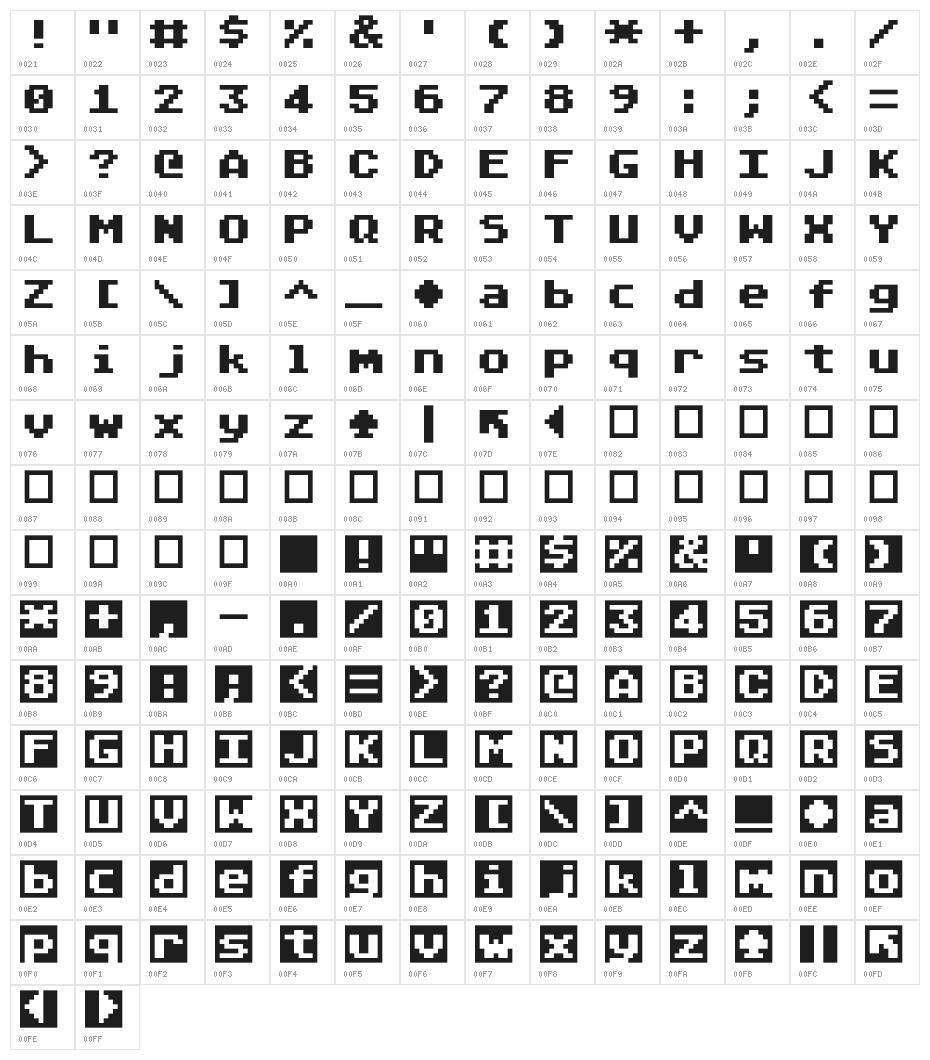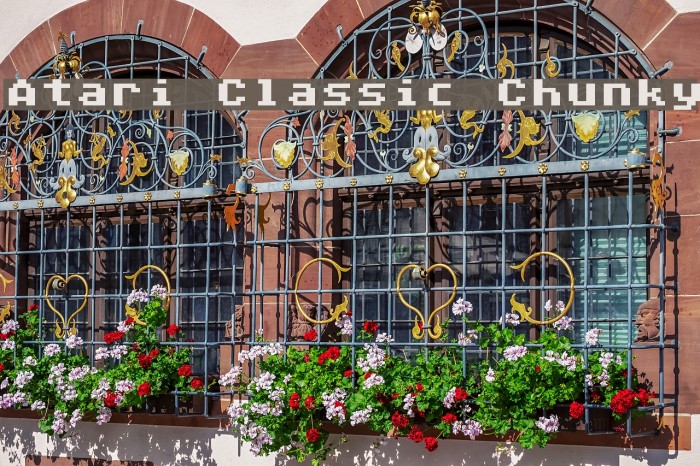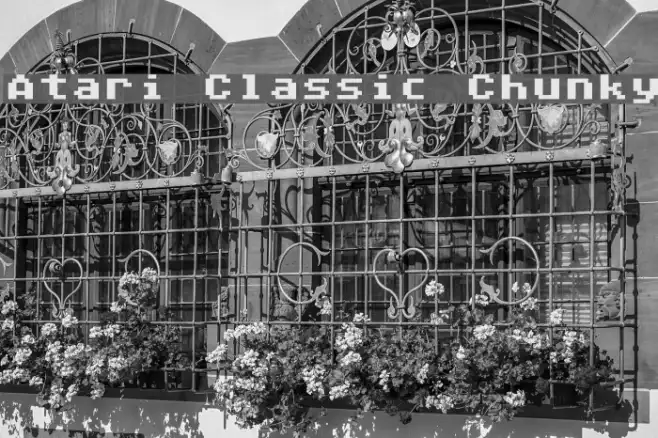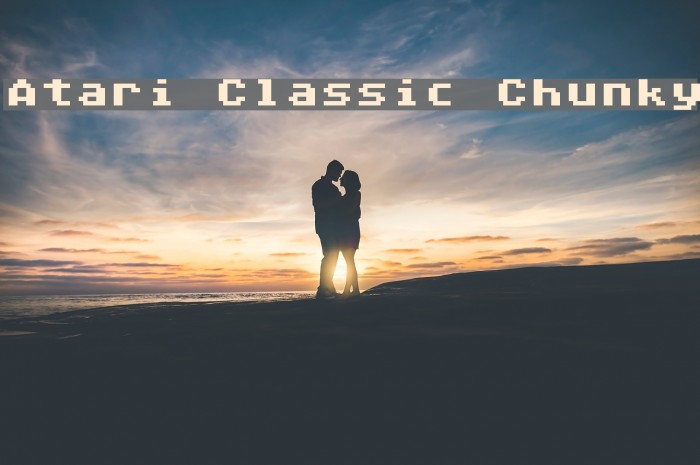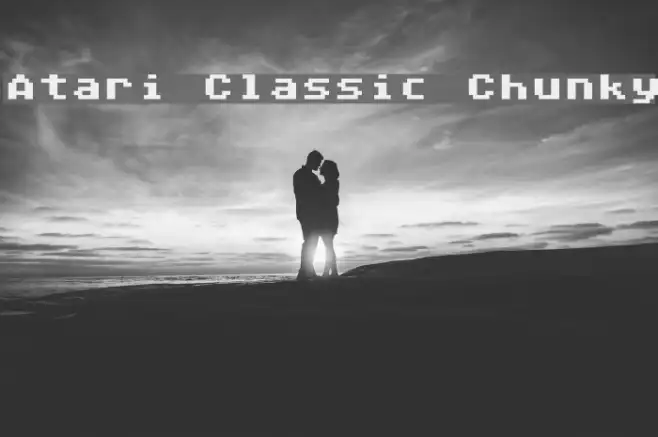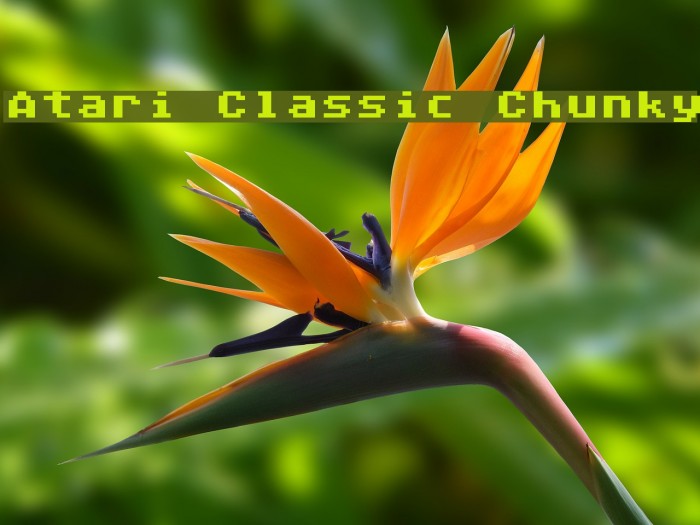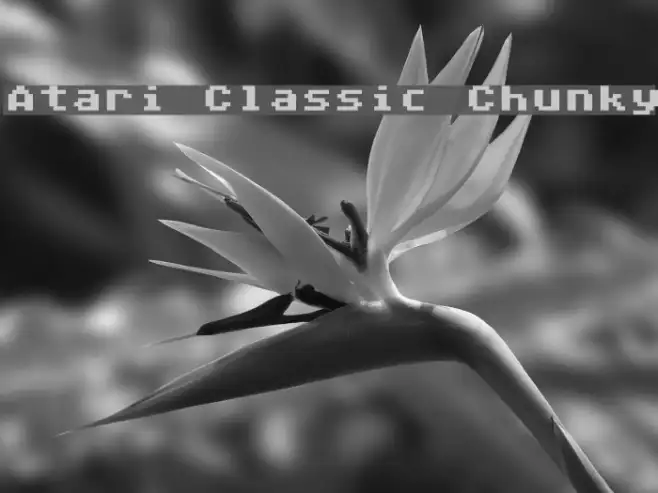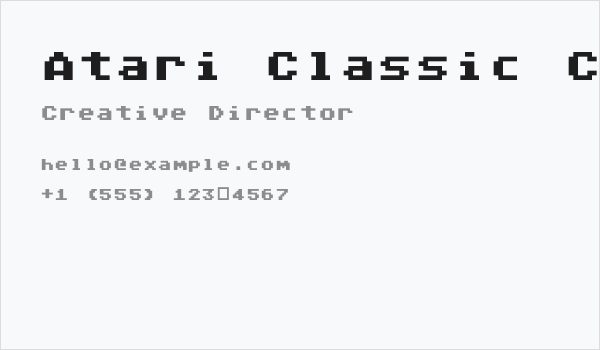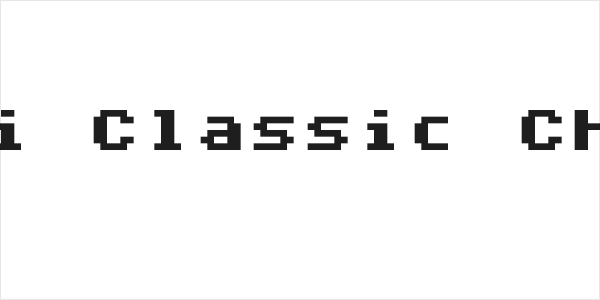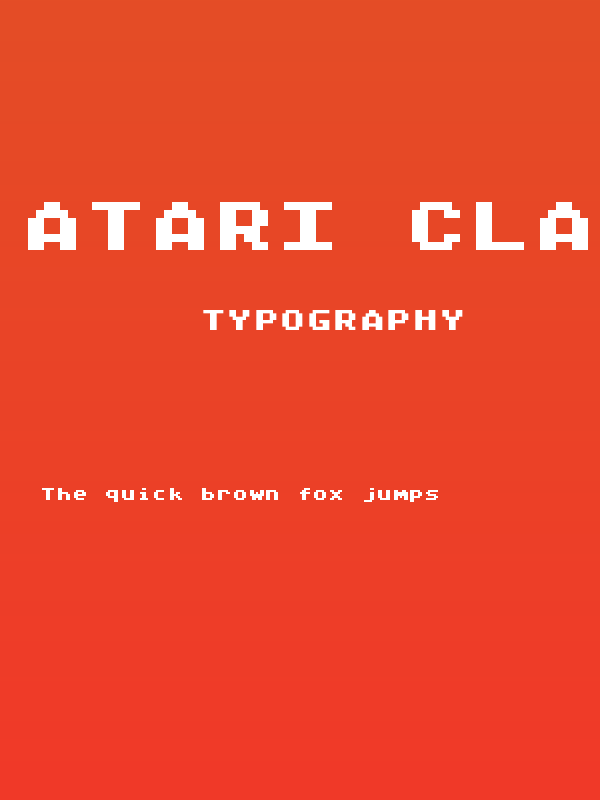
Atari Classic Chunky Font
This font features a bold, pixelated design reminiscent of classic video game aesthetics. Each character is constructed with a blocky, grid-like structure, giving it a retro, digital feel. The uppercase and lowercase letters maintain a consistent height, enhancing the uniform appearance. Numbers and special characters follow the same chunky style, ensuring visual coherence across all elements. The font's simplicity and nostalgic charm make it ideal for projects that aim to evoke a sense of vintage technology or gaming culture.
Proposed ProjectsIdeal for retro video game designs, digital art projects, nostalgic branding, or any creative work that seeks to capture the essence of classic gaming.